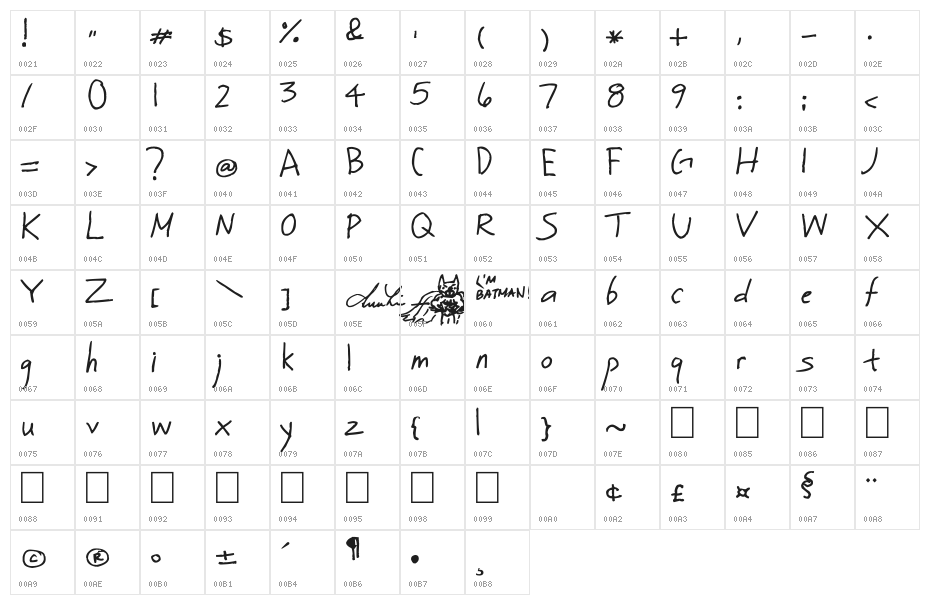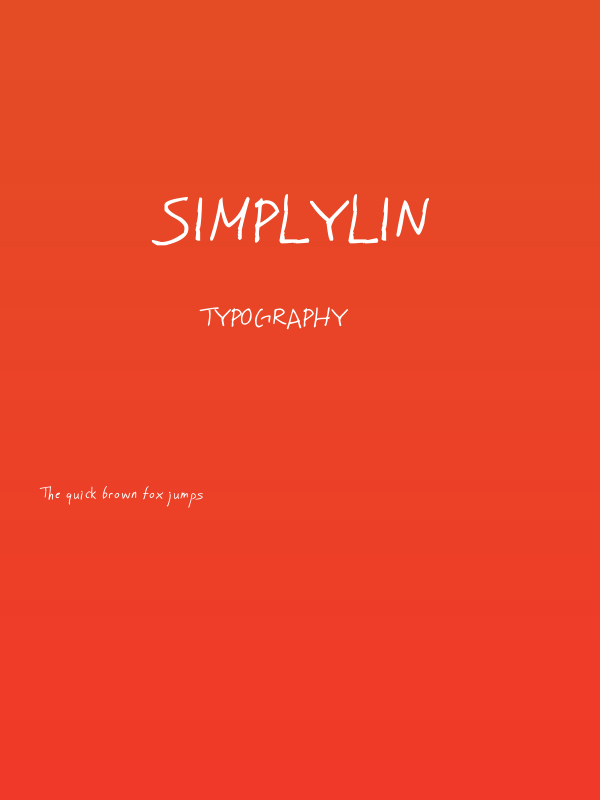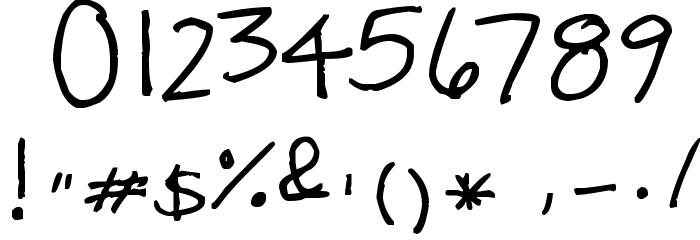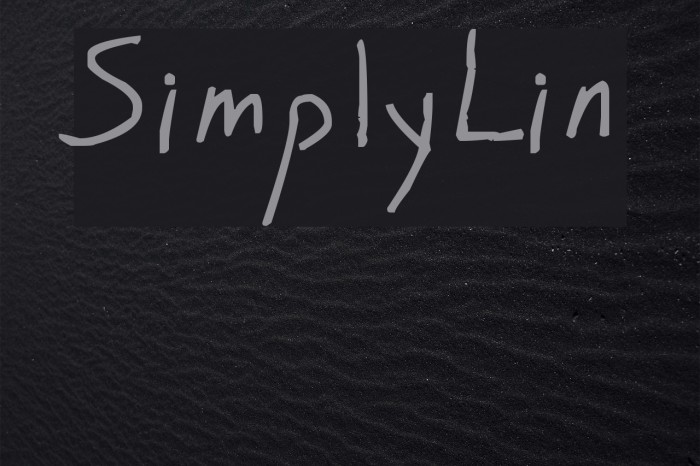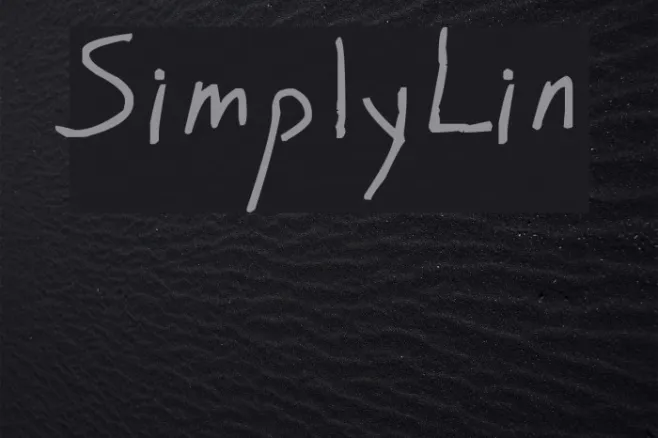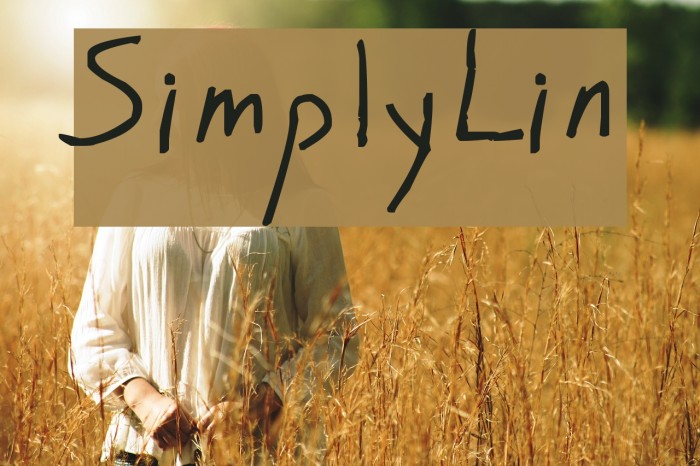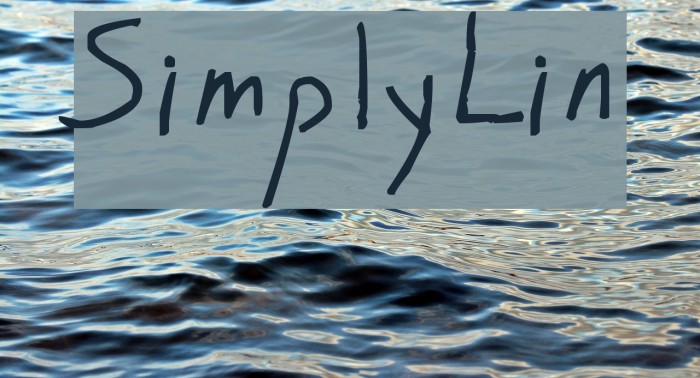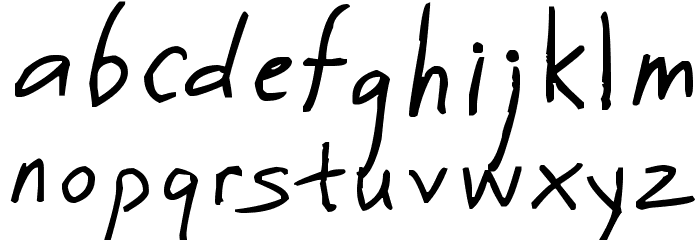
SimplyLin Font
SimplyLin Description
This font exhibits a casual, handwritten style with a playful and informal appearance. The characters are slightly irregular, giving it a personal and authentic touch. The strokes are uneven, with a natural flow that mimics the spontaneity of handwriting. The uppercase letters are bold and prominent, while the lowercase letters maintain a consistent style with a slight slant. Numbers and special characters are crafted with the same informal aesthetic, making them blend seamlessly with the alphabet. This font is ideal for projects that require a personal or creative touch, such as greeting cards, invitations, or artistic posters.
| Use Case | Headlines, Artistic projects, Personal branding |
| Proposed Projects | Greeting cards, invitations, artistic posters, personal branding. |